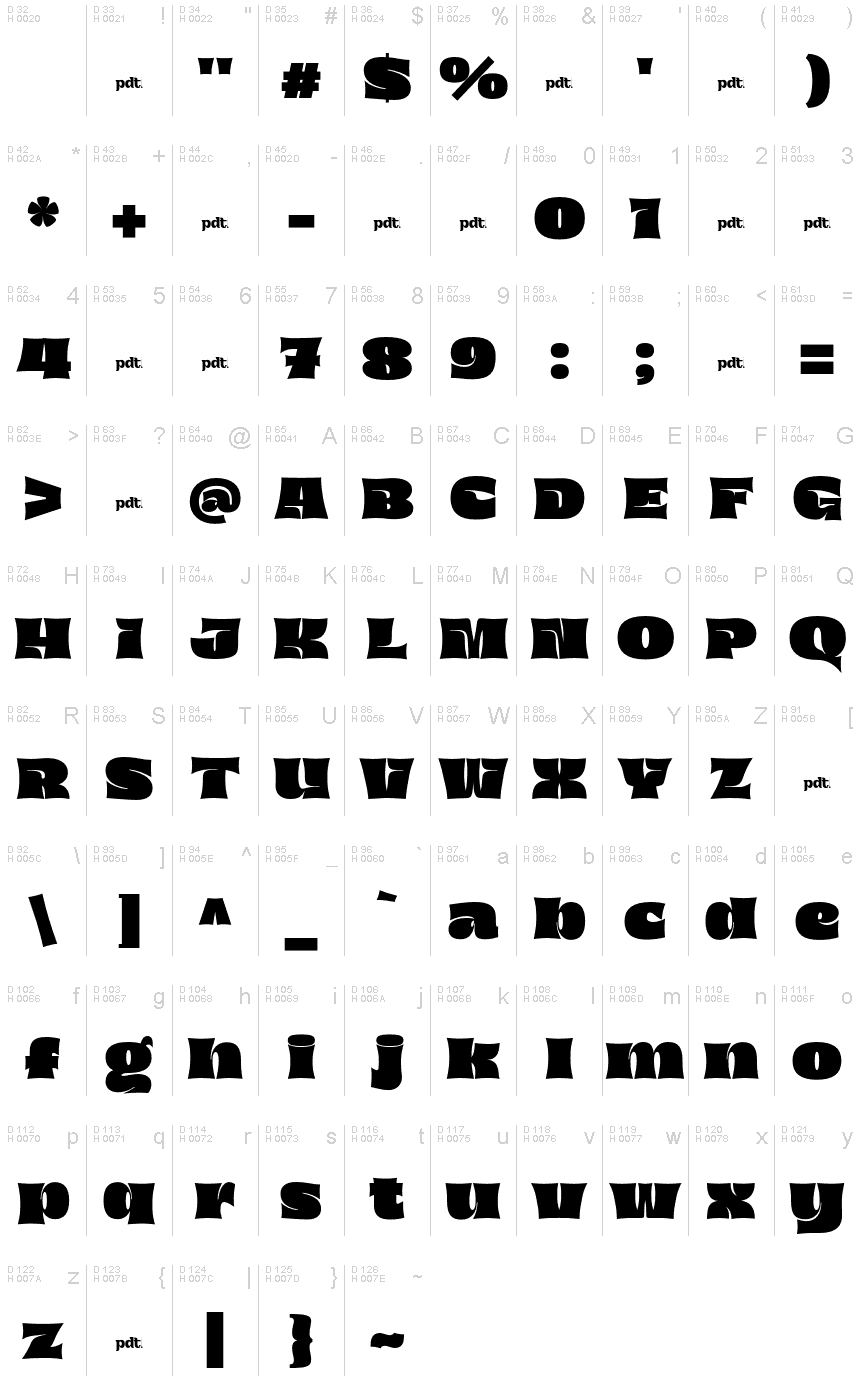
KagebBoldtrial-Regular
Are you ready to add some funk to your designs? Meet Kageb Bold, the groovy font that will make your headlines pop! Designed by Rozi of Productype, this extra-bold typeface features an extra-expanded width that commands attention. Ideal for projects that require a fun and playful vibe, Kageb Bold is perfect for party invitations, album covers, and social media graphics. Don't be afraid to experiment with its unique curves and bold lines - this font is made to stand out! Let Kageb Bold elevate your designs and bring them to life.